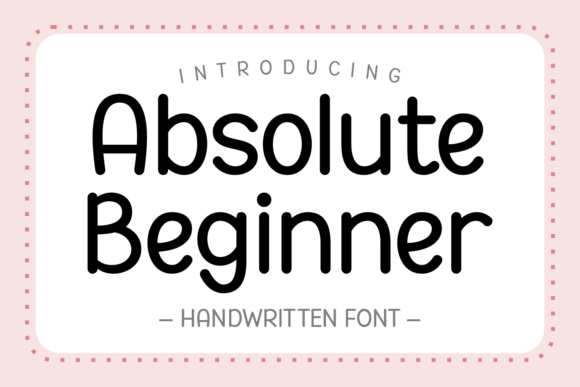
Absolute Beginner: The Handwritten Font for Modern Marketers
In the crowded digital landscape, a single visual element can determine whether a user scrolls past or stops to engage. As marketers and content creators, we constantly search for design assets that bridge the gap between polished professionalism and authentic human connection. Enter Absolute Beginner, a unique handwritten font designed specifically to bring a clean, authentic touch to your creative projects. Unlike many script fonts that sacrifice legibility for flair, this typeface strikes a perfect balance between casual warmth and modern minimalism, making it an invaluable tool for building brand identity across social media, advertising, and web design.
Crafting Authenticity in Digital Campaigns
The era of sterile, over-produced graphics is fading. Today's audiences crave authenticity, especially on platforms like Instagram, TikTok, and Pinterest. They want to feel like they are interacting with a real person, not a faceless corporation. This is where Absolute Beginner shines. Its personality mimics the natural flow of handwriting without the messiness that often plagues traditional script fonts. When used in campaign visuals, it instantly softens the tone of your message, making product launches, seasonal promotions, and personal branding efforts feel more approachable and trustworthy.
For a marketing specialist, the mood you set with typography is just as critical as the copy itself. A bold sans serif font might scream authority, but Absolute Beginner whispers sincerity. It is ideal for inspirational quote graphics, behind-the-scenes reels covers, and intimate email headers where the goal is to build rapport rather than just broadcast information. By integrating this creative font into your design system, you signal to your audience that your brand values human connection and transparency.
Strategic Applications Across Platforms
The versatility of Absolute Beginner allows it to function effectively across a wide range of digital touchpoints. In the realm of social media graphics, its clean lines ensure that headlines remain readable even at smaller sizes on mobile feeds. Imagine a YouTube thumbnail featuring a product teaser; using this display font for the main hook creates a sense of exclusivity and hand-crafted quality that standard system fonts cannot match. Similarly, on Pinterest pins, where visual hierarchy is key, pairing this script font with a strong image draws the eye immediately to the value proposition.
Consider a sale announcement for an online shop. Instead of a generic "SALE" banner, a headline reading "Our Biggest Sale Yet" in Absolute Beginner feels like a personal invitation from a friend. For webinar banners and landing pages, this typeface works beautifully as a decorative accent or a primary title, breaking up blocks of text and guiding the reader through the narrative. It transforms a standard promotional graphic into a piece of editorial design that stands out in a fast-scrolling feed.
Enhancing Readability and Visual Hierarchy
One of the most common pitfalls when using script fonts is sacrificing readability for style. However, Absolute Beginner is engineered to maintain clarity. Its open counters and consistent stroke width make it highly legible on small screens, which is crucial for mobile-first marketing strategies. When designing ads or digital banners, clear messaging is non-negotiable. If a user has to squint to read your call-to-action, you have already lost their attention.
To maximize visual hierarchy, use this font strictly for short text elements such as headlines, titles, logo marks, and callouts. Avoid using it for long paragraphs of body copy. Instead, let it anchor your design while supporting text carries the detailed information. This approach ensures that your key messages pop without overwhelming the viewer. In campaign visuals, this distinction helps guide the user's eye naturally from the emotional hook provided by the script font to the logical details provided by supporting typefaces.
Mastering Font Pairing for Brand Consistency
No font exists in a vacuum. To create a cohesive brand identity, strategic font pairing is essential. Absolute Beginner pairs exceptionally well with clean sans serif fonts. The contrast between the organic, fluid nature of the handwritten style and the geometric precision of a sans serif creates a dynamic tension that is visually engaging. For captions, subheadings, and body text, a neutral sans serif provides the necessary grounding, ensuring that the overall composition remains professional and easy to digest.
Alternatively, for a more sophisticated or editorial look, consider pairing it with a classic serif font. This combination elevates the perceived value of your content, making it suitable for high-end product packaging design, luxury blog posts, or premium brand storytelling. Whether you are creating branded templates for client campaigns or designing merchandise, these pairings help establish a consistent visual language that reinforces your brand recognition across all channels.
Impact on Audience Perception and Engagement
First impressions happen in milliseconds. In the context of digital advertising, the choice of typeface influences how an audience perceives your brand before they even read a word. Absolute Beginner projects a vibe of creativity, accessibility, and modernity. It suggests that your brand is current and attuned to the latest trends in modern typography. This perception is vital for startups, influencers, and small business marketing teams looking to differentiate themselves from competitors relying on outdated or generic design assets.
In conclusion, Absolute Beginner is more than just a pretty script font; it is a strategic communication tool for the modern marketer. By leveraging its unique blend of handwritten charm and modern clarity, you can create scroll-stopping visuals that resonate with your audience, enhance your brand identity, and drive meaningful engagement. From YouTube thumbnails to email headers, this typeface offers the flexibility and impact needed to succeed in today's competitive digital environment.